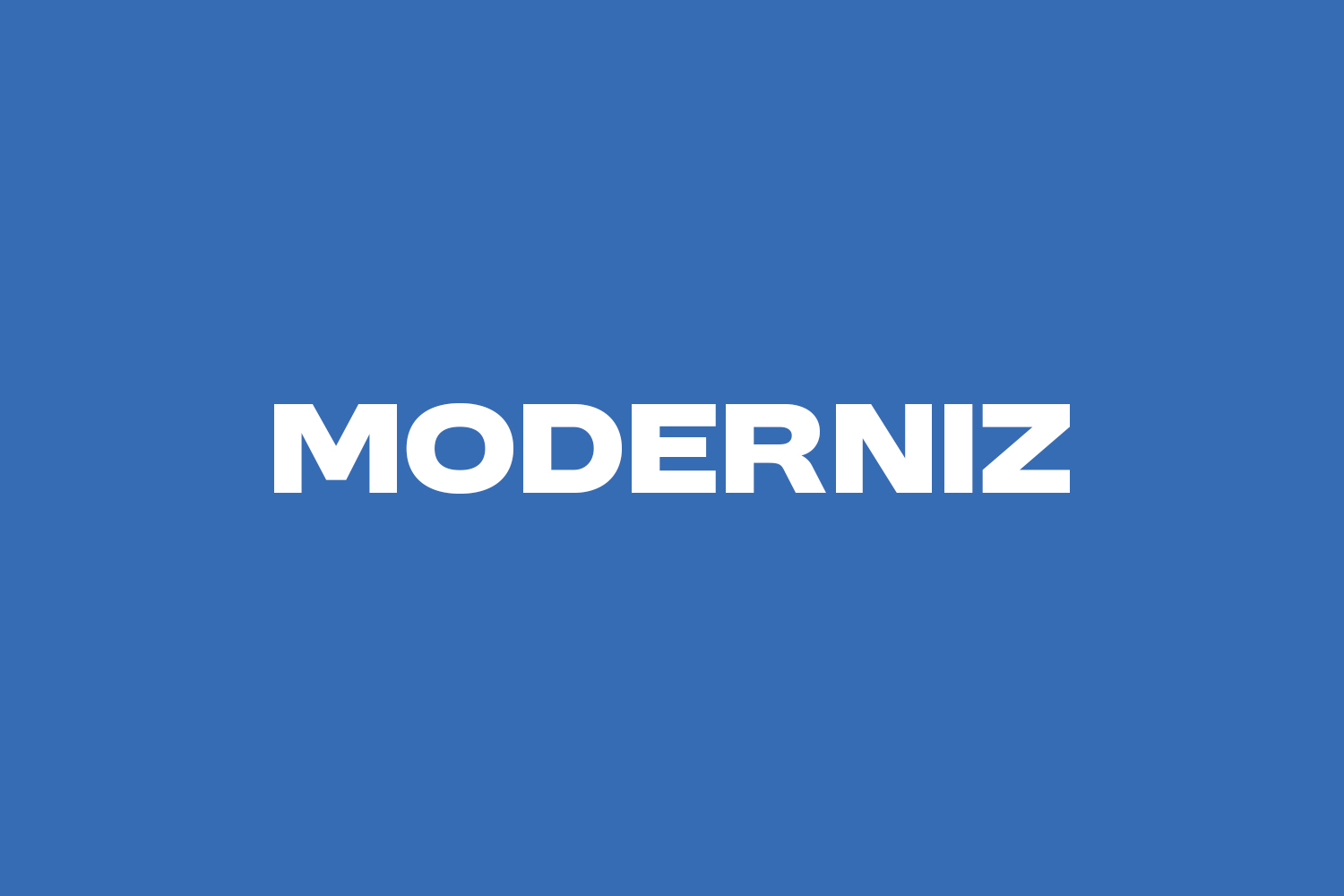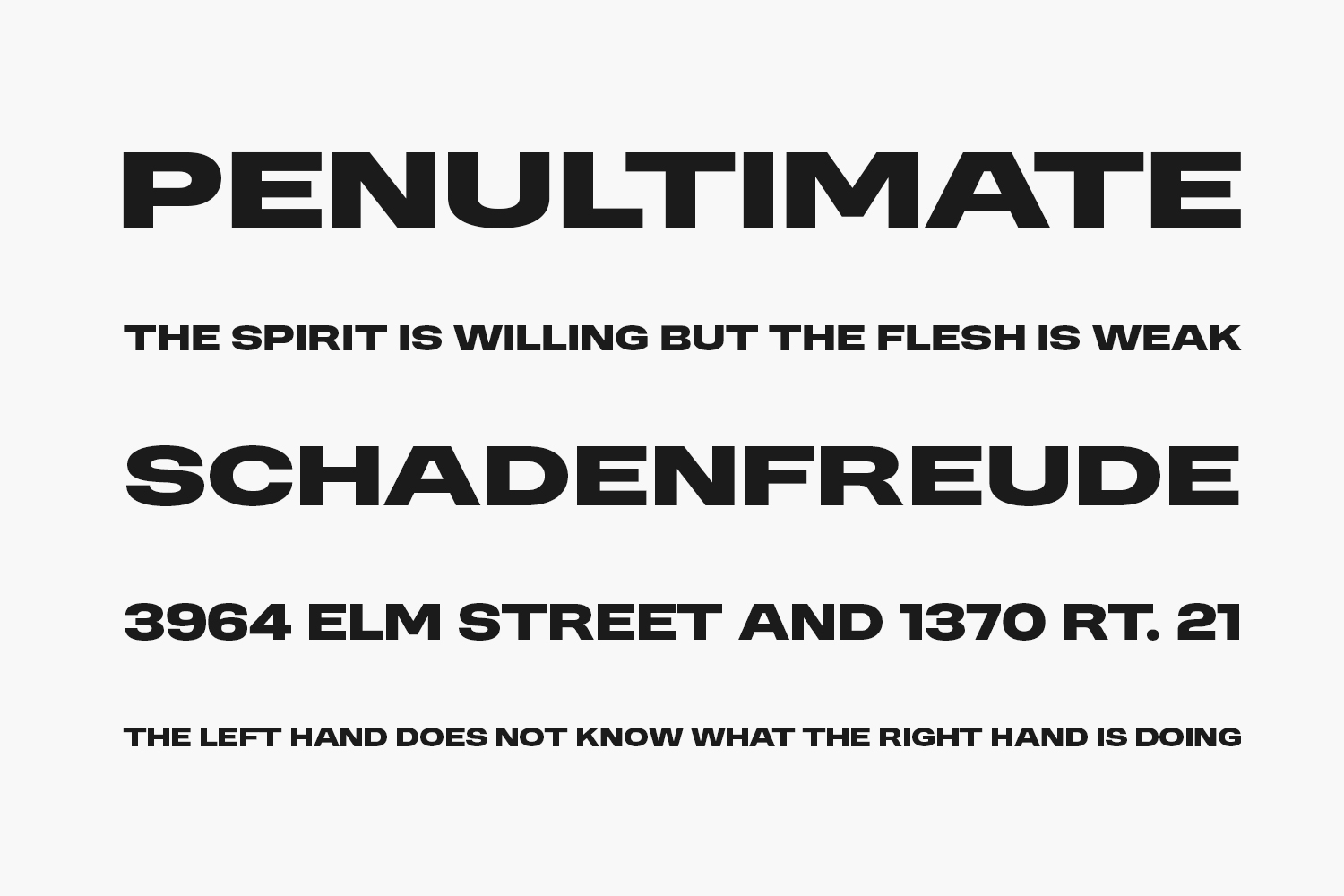
Moderniz is a sleek and minimalist sans-serif font designed by Eko Bimantara to bring clarity and sophistication to your creative projects. With its geometric structure, clean lines, and balanced proportions, this free typeface works perfectly for crafting elegant logos, digital interfaces, magazine headers, branding kits, and more. Available in OTF format — ideal for designers seeking a neutral, modern font that enhances legibility without overpowering your layout.
Why Choose Moderniz?
- Clean & Minimalist Style: Combines precision with simplicity for a professional and contemporary appearance.
- Ideal for UI & Editorial Design: Perfect for websites, app typography, blog headers, or advertising needing a crisp tone.
Where to Use Moderniz?
Moderniz shines across a variety of design applications:
- Logos & Brand Identities: Adds confidence to brand identities for startups, lifestyle blogs, or fashion labels needing a modern tone.
- Digital Interfaces: Ideal for web headers, mobile app text, or landing page buttons where readability is key.
- Editorial Headers: Stands out in blog titles, magazine covers, and banners with a structured, elegant charm.
- Packaging Design: Enhances product tags on artisanal goods, clothing labels, or food packaging requiring a clean look.
- Social Media Graphics: Creates bold text overlays for Instagram Stories, TikTok videos, or YouTube banners with a stylish sans-serif presence.
Design Tips with Moderniz
Designed by Eko Bimantara